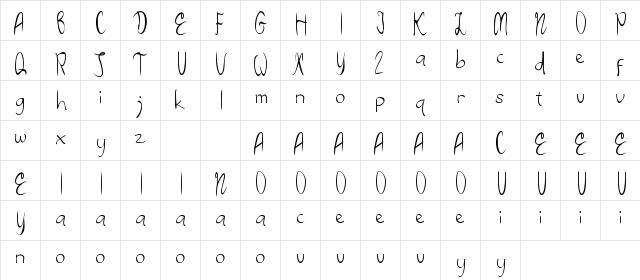
Prassent Geek Regular Font Preview
Prassent Geek Regular
Prassent Geek Regular Font Details
| Designer | Zkhai Creative |
Design Context for Prassent Geek Typeface
Prassent Geek takes a measured approach to typography — its balanced proportions and neutral character make it a reliable workhorse for both digital and print work.